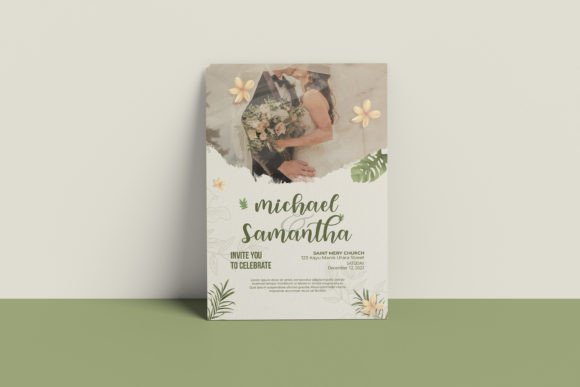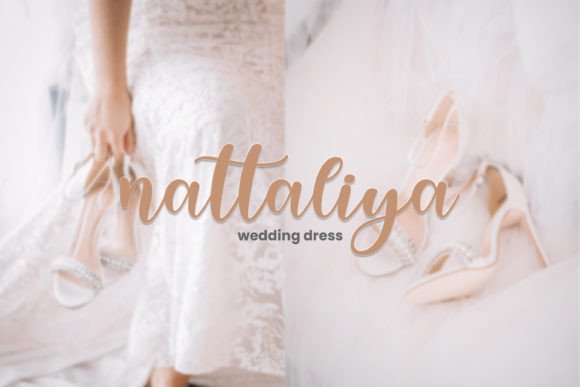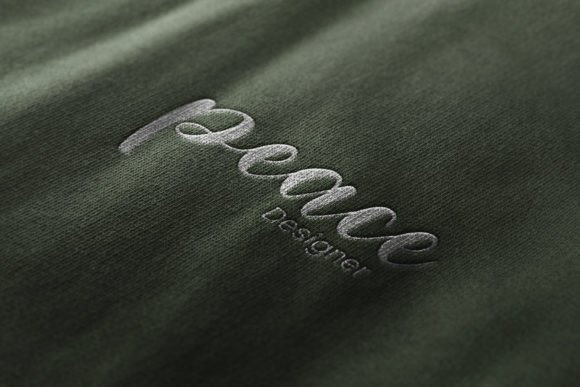
Samantha Font
About Samantha Font
Samantha is a new, fresh & modern script font with a handmade calligraphy style, decorative characters, and a dancing baseline! It looks so beautiful on invitations, greeting cards, branding materials, business cards, quotes, posters, and more!